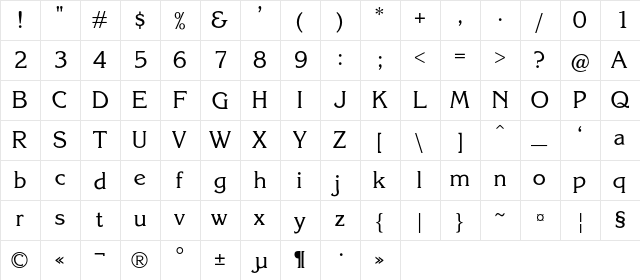
KareliaC Regular
Design Context for KareliaC Typeface
KareliaC is a composed and adaptable typeface that performs quietly and consistently across a wide range of design contexts.